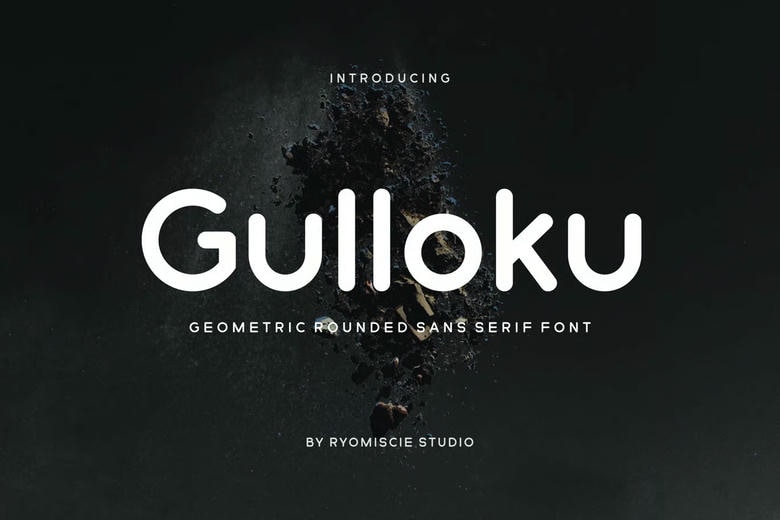
Gulloku Font
Gulloku is a bold and authentic geometric rounded sans-serif font. It works well for branding projects such as logos, esports, and more. This font stands out in many different settings.
Gulloku Sans Serif Font